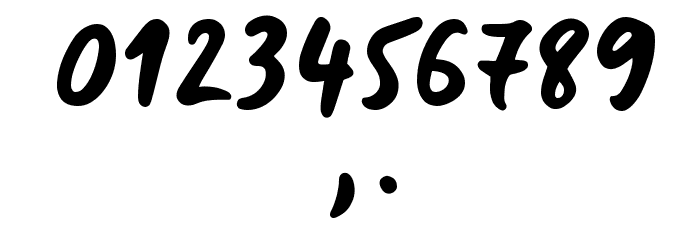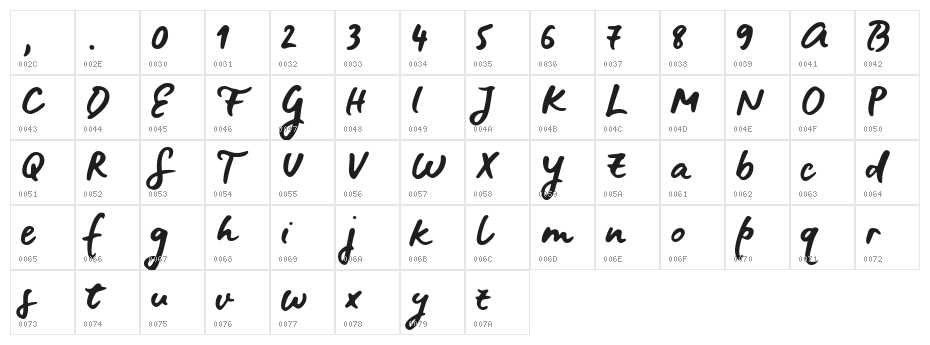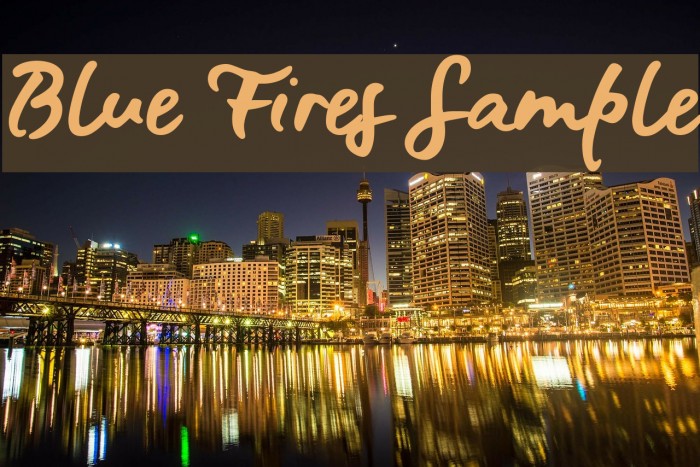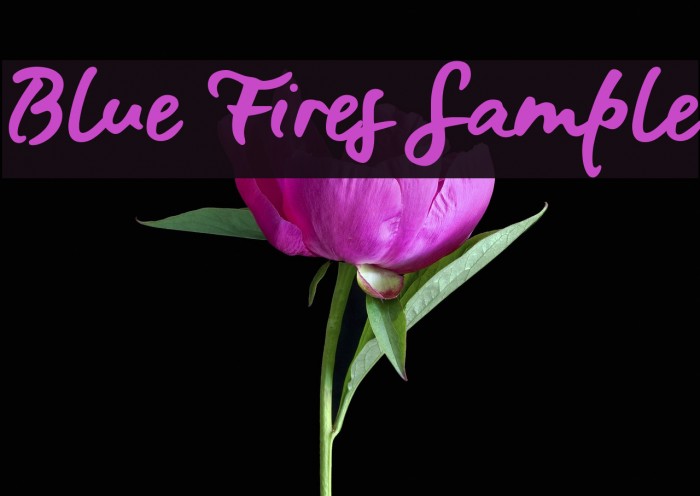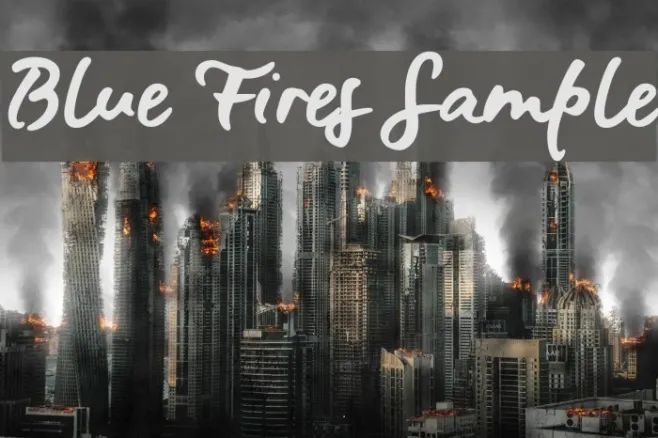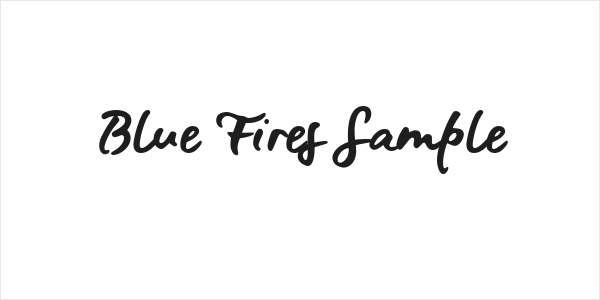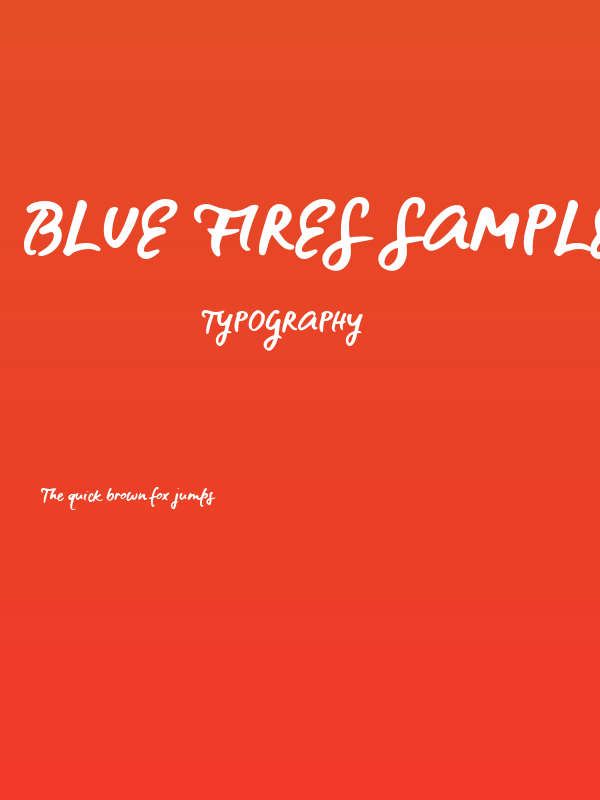
Blue Fires Sample Font
Blue Fires Sample Description
This font exudes a lively and dynamic energy, characterized by its bold, flowing script style. The letters are interconnected, creating a sense of movement and fluidity. The strokes are thick and consistent, providing a strong visual impact. The uppercase letters are slightly larger and more pronounced, while the lowercase letters maintain a cohesive flow. The numbers and special characters match the overall style, ensuring uniformity across all elements. This font is ideal for projects that require a personal, handwritten touch, such as invitations, greeting cards, or branding materials.
| Proposed Projects | Ideal for invitations, greeting cards, branding materials, and any project needing a personal touch. |